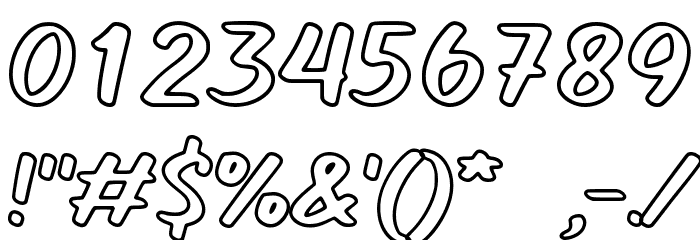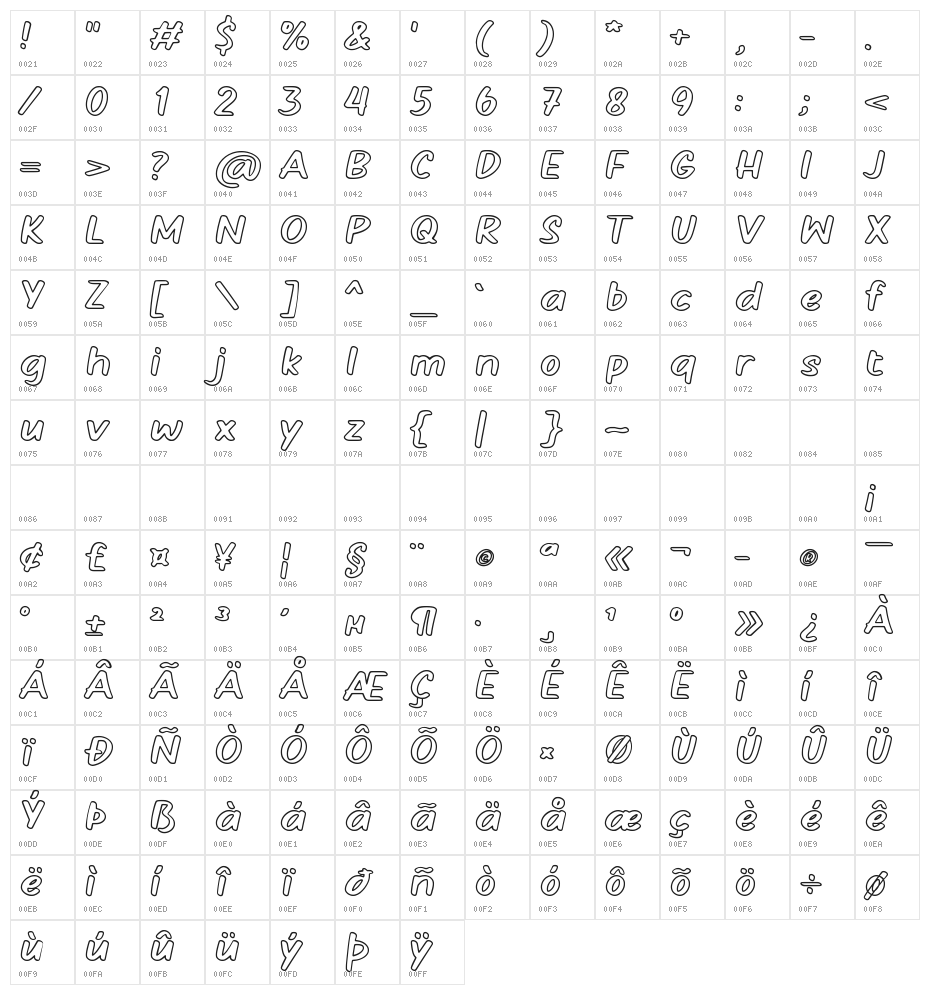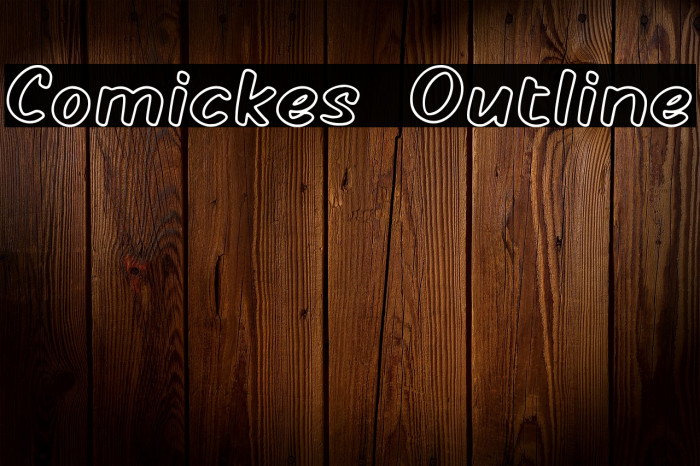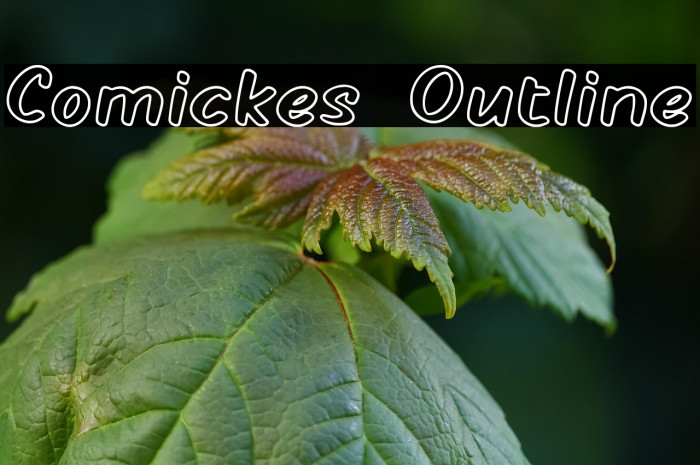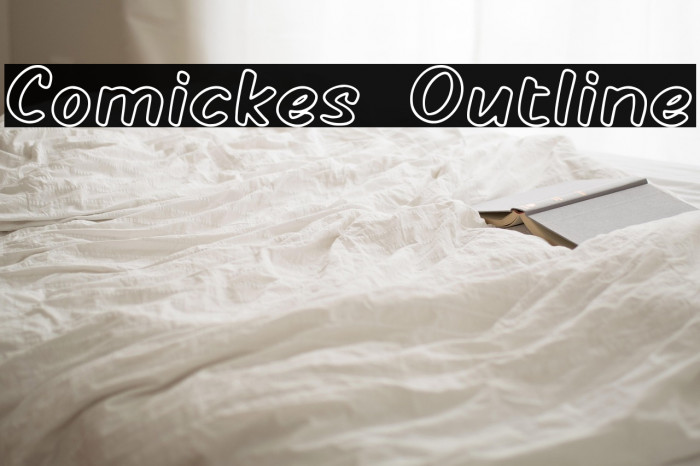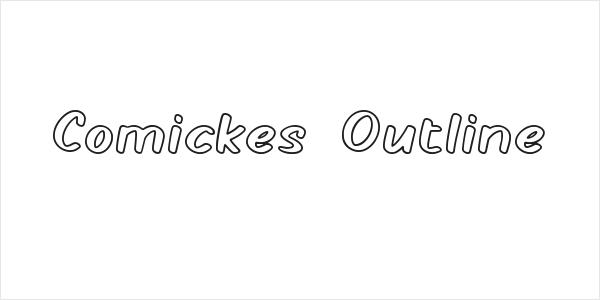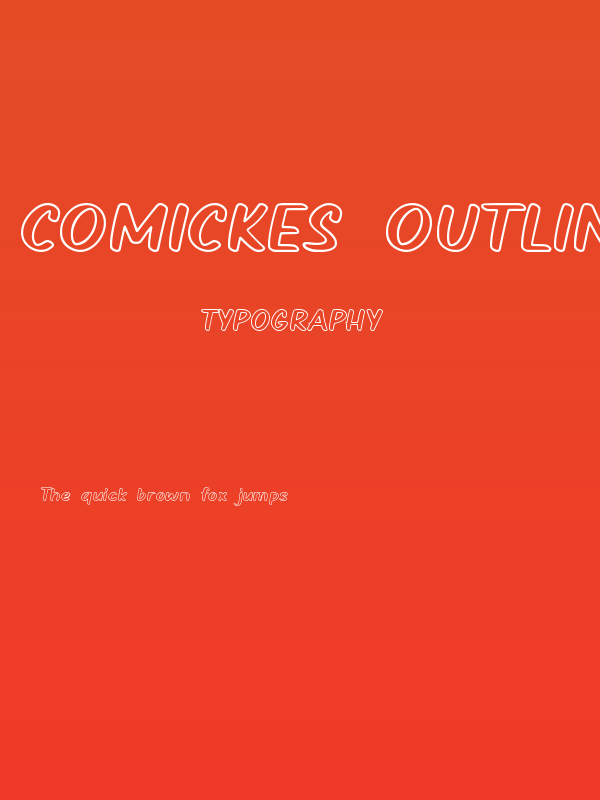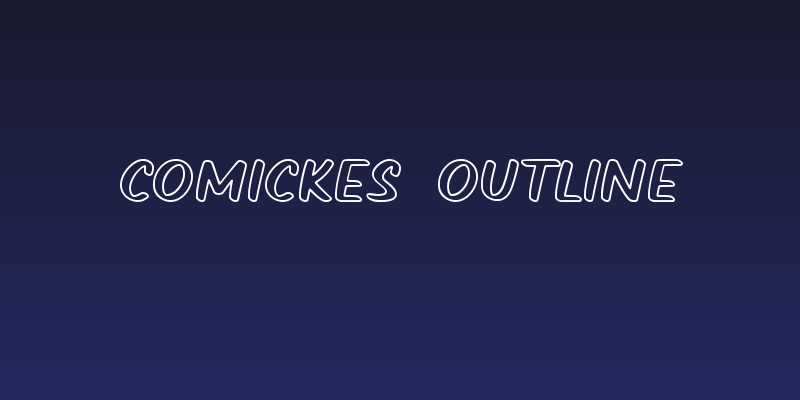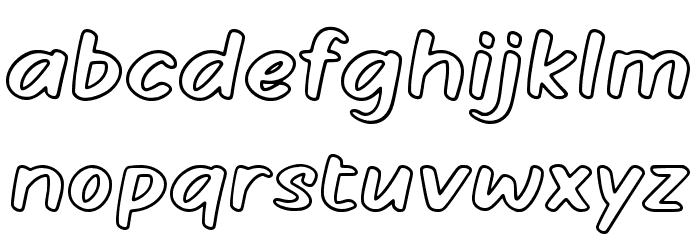
Comickes Outline Font
Comickes Outline Description
This playful and bold font features an outline style that gives it a comic-like appearance. The characters are rounded and slightly informal, with a hand-drawn feel that adds a touch of whimsy. The uppercase and lowercase letters maintain a consistent style, with smooth curves and a uniform thickness that enhances readability. The numbers and special characters follow the same design principles, ensuring a cohesive look across all text elements. This font's outline nature makes it ideal for projects that require a fun and engaging visual impact.
| Overall Style | Playful, Comic |
| Proposed Projects | Ideal for comic books, children's books, playful branding, posters, and creative digital content. |